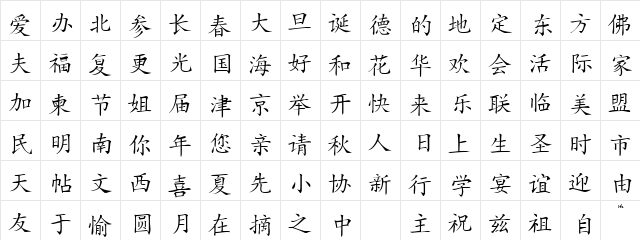
HanziKaishu Normal
Design Context for HanziKaishu Typeface
HanziKaishu offers clean, dependable letterforms without strong stylistic allegiance, making it a practical choice for designers who need flexibility.